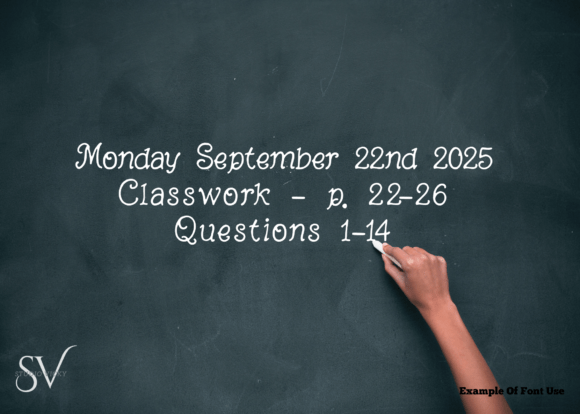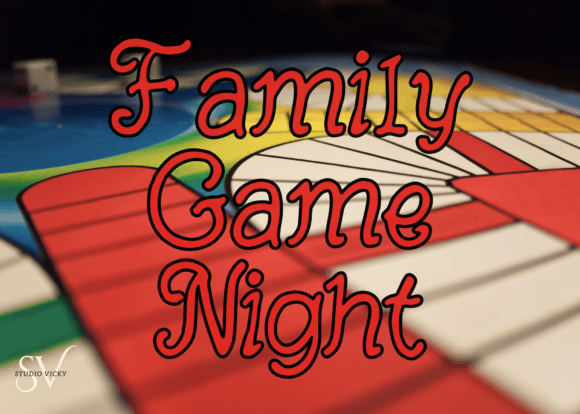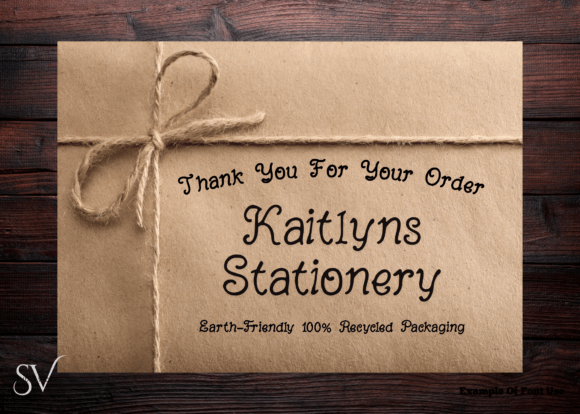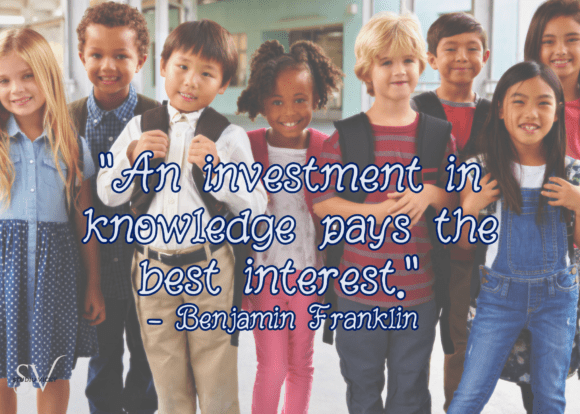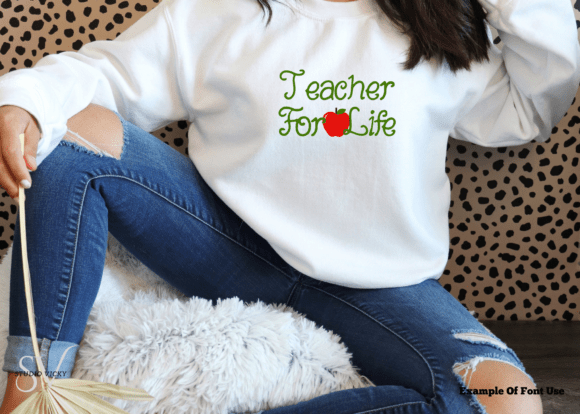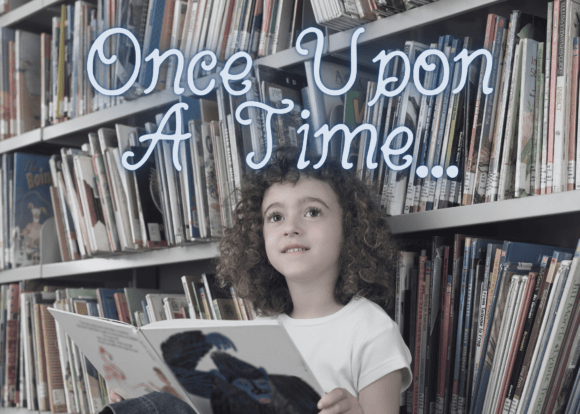
Introduction to Lesson Plan Script Font
Remember the thrill of scribbling out lesson plans on a chalkboard, the feel of the chalk gliding effortlessly across the surface? That nostalgic charm is now at your fingertips with the Lesson Plan Script Font, a delightful handwritten font that brings a touch of warmth and personality to your creative projects.
As educators, designers, and creators, we’re always on the lookout for high-quality design resources that make our work shine. The Lesson Plan Script Font is perfect for anyone who wants to add a friendly, legible touch to their printables, worksheets, and digital projects. With its smooth lines and transparent background, this versatile script is ideal for crafting curriculum materials, designing classroom decor, or simply adding a personal touch to your brand.
Key Features of Lesson Plan Script Font
- High-quality design resource ideal for creative projects, including lesson plans, educational materials, and more.
- Features a unique, handwritten style with a transparent background, allowing for easy customization and versatility.
Honest Review: Lesson Plan Script Font
I recently stumbled upon the Lesson Plan Script Font, and I must say it’s a great addition to my design resource library. This beautiful script font is perfect for those creative projects that require a touch of elegance and sophistication.
- What works well: ✨ The font is extremely versatile and can be used for a variety of purposes, from lesson plans and educational materials to invitations and wedding stationery.
- ✨ The high-quality design ensures that the font looks great even when scaled up or down.
- ✨ The transparent background makes it easy to customize and integrate with other design elements.
- ⚠️ The font may not be suitable for use in all applications, such as social media or web design, due to its cursive nature.
- ⚠️ Some users may find the font to be a bit difficult to read at smaller font sizes.
Overall, I’m very impressed with the Lesson Plan Script Font. It’s a high-quality design resource that’s perfect for those who want to add a touch of elegance to their creative projects. Whether you’re a student, teacher, or graphic designer, this font is definitely worth checking out.
Lesson Plan Script Font
Designing with Lesson Plan Script Font
Tips for Getting the Most Out of Lesson Plan Script Font
To get the most out of this font, try combining it with other design elements to create a cohesive look. Experiment with different font sizes, colors, and positions to add visual interest to your design.
The Lesson Plan Script Font is perfect for educational projects, such as lesson plans, worksheets, and presentations. It’s also great for creating invitations, social media graphics, and other creative projects that require a touch of elegance and sophistication.
Yes, the Lesson Plan Script Font is designed to be used on a transparent background, making it perfect for creative projects that require a high level of customization. Simply place the font on a transparent layer or background, and you’re good to go!
Q: Is the Lesson Plan Script Font suitable for large-scale printing?
Yes, the Lesson Plan Script Font is designed to be high-quality and legible, even at large font sizes. It’s perfect for use in presentations, posters, and other large-scale printing projects where clarity and readability are crucial.